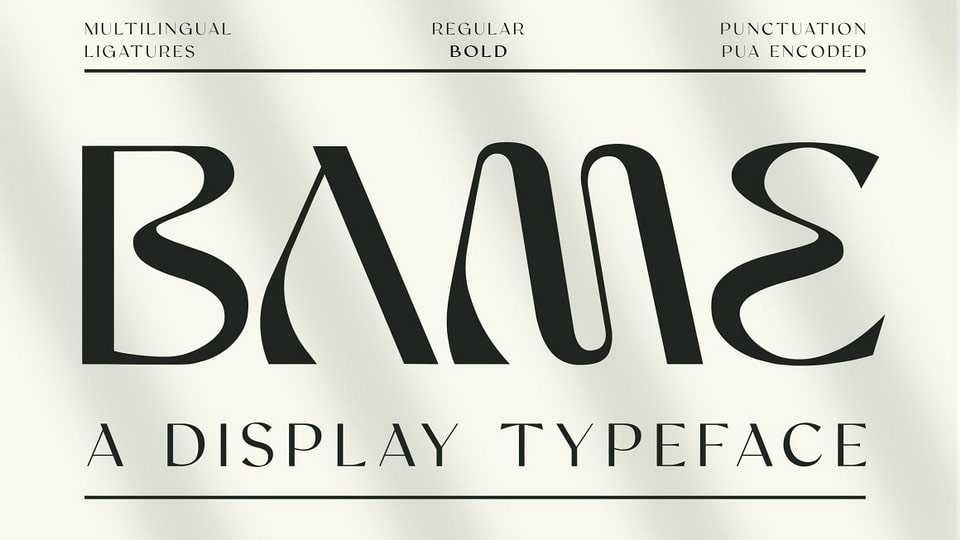
Download Bame font, a display typeface that has a distinct curve and a lively personality. Bame is ideal for projects that require a unique and modern style.